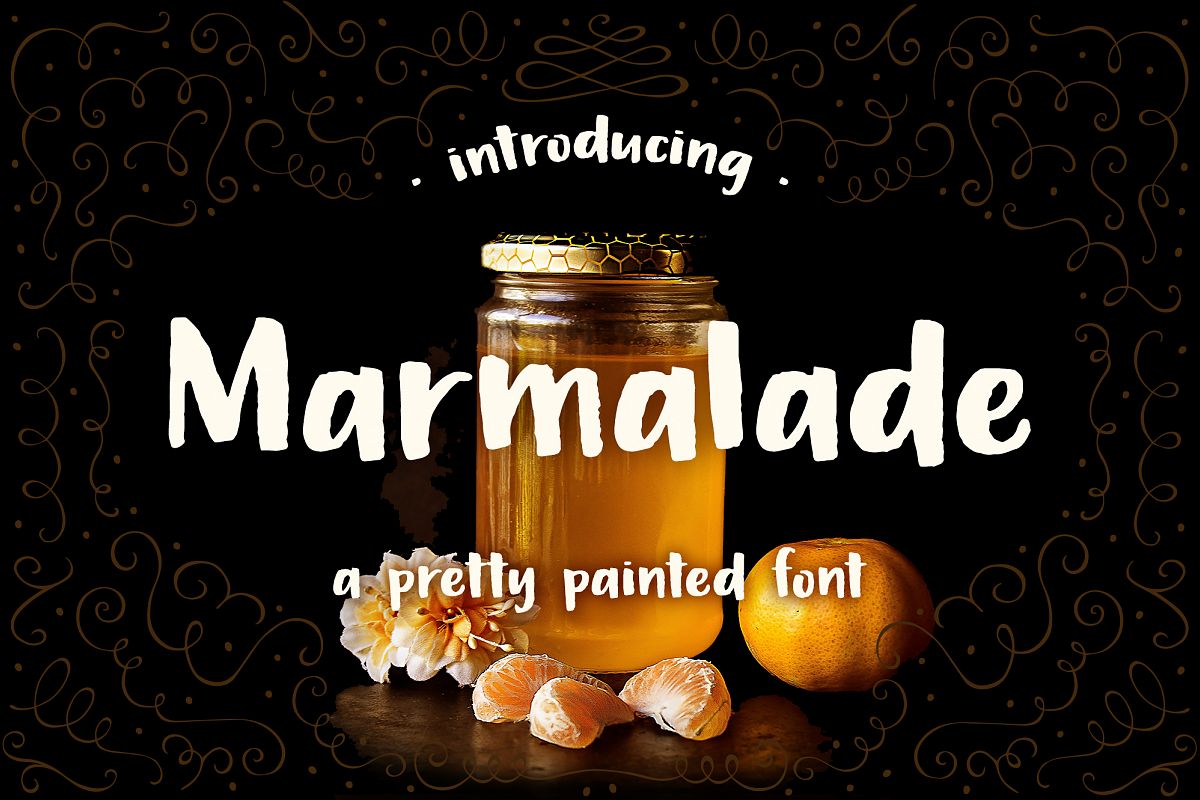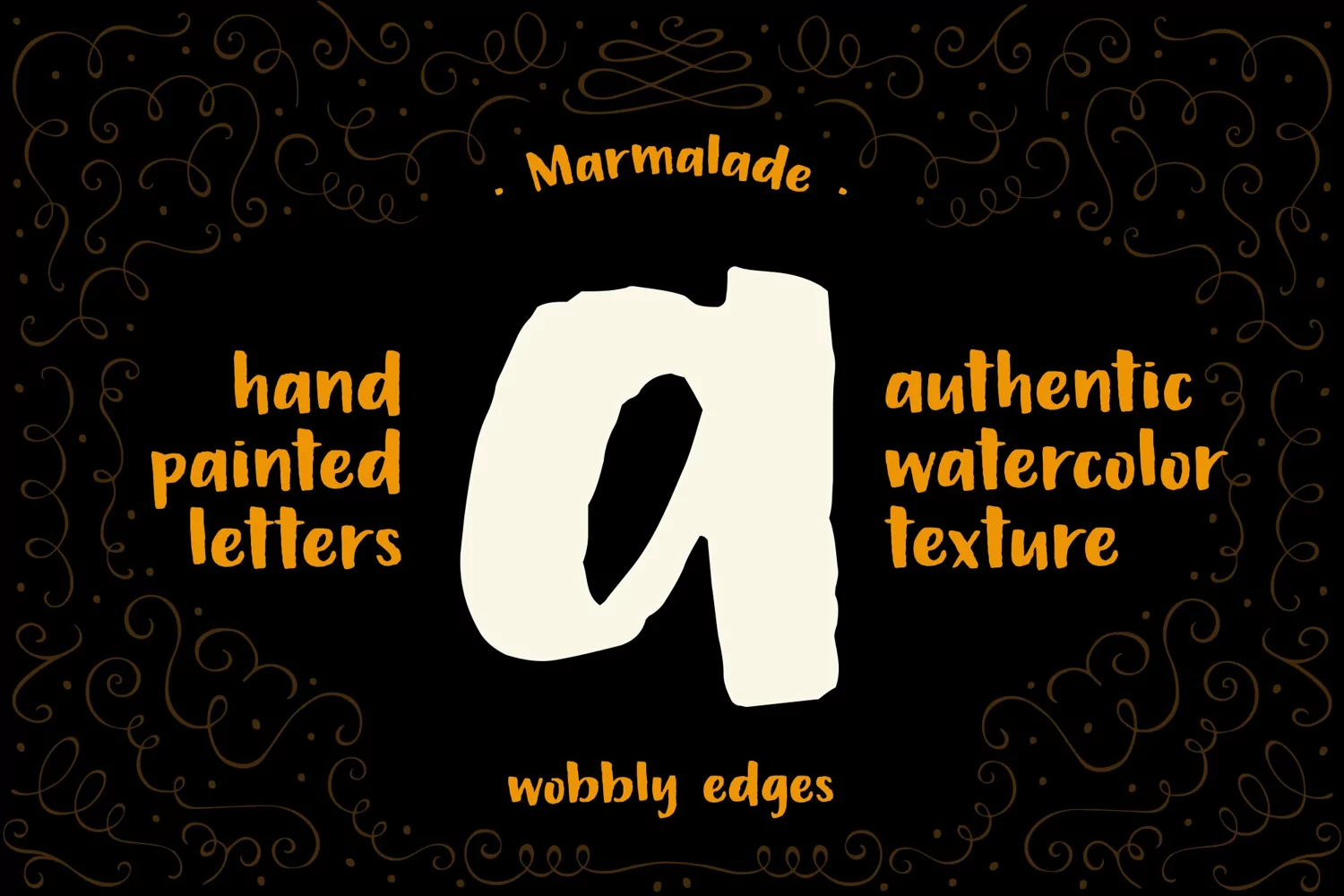
I want to introduce you to Marmalade, a pretty hand painted font.I created Marmalade with a teeny brush and some pretty watercolors. It has authentic watercolor textured edges. It's a casual, unconnected hand lettered script, with a bouncy baseline and squared off strokes. The uppercase letters work like their very own font - try mixing ALL CAPS with lowercase for a punchy look.
Use Marmalade for branding, headlines - anywhere you need to grab attention. It also looks great when used for typography projects.
Includes support for all Western European languages.